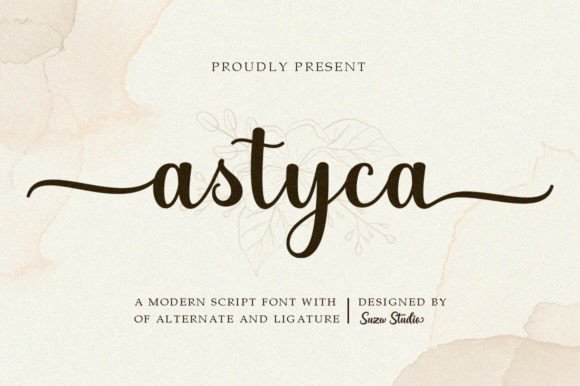
Unveil the Allure of Astyca Script: The Font That Enchants
Enter the realm of breathtaking beauty and elegance with Astyca Script, a font that captivates the senses and elevates your designs to new heights. This enchanting script typeface dances along the baseline, leaving a trail of charm and sophistication in its wake. Its casual yet graceful demeanor makes it the perfect choice for a multitude of creative endeavors, from logos and wedding invitations to headings, t-shirts, and letterheads.
Immerse yourself in the romantic allure of Astyca Script, where each character flows with a delicate grace, reminiscent of a gentle breeze caressing a field of flowers. Its meticulously crafted curves and swirls evoke a sense of timeless elegance, adding a touch of whimsy and charm to your designs.
Whether you're a seasoned designer or just starting your creative journey, Astyca Script is your gateway to unlocking a world of visual enchantment. Its versatility knows no bounds, making it an indispensable tool for designers of all levels. Unleash your imagination and let Astyca Script guide you to design masterpieces that captivate and inspire.
Experience the transformative power of Astyca Script and witness how it effortlessly elevates your designs, adding a touch of magic to every project. Its ability to seamlessly blend with other design elements makes it the perfect partner for creating cohesive and visually stunning compositions.